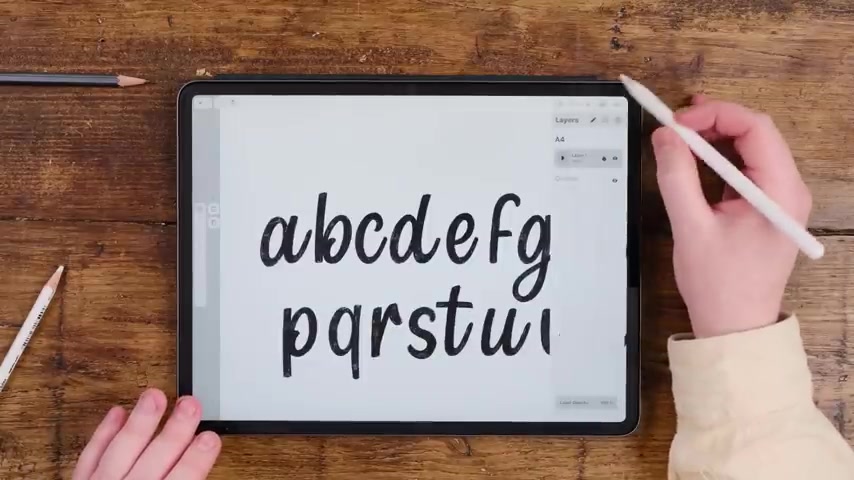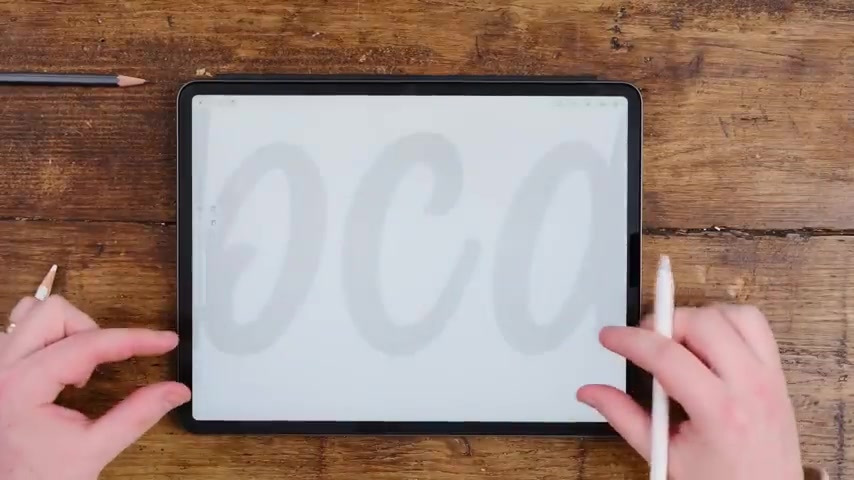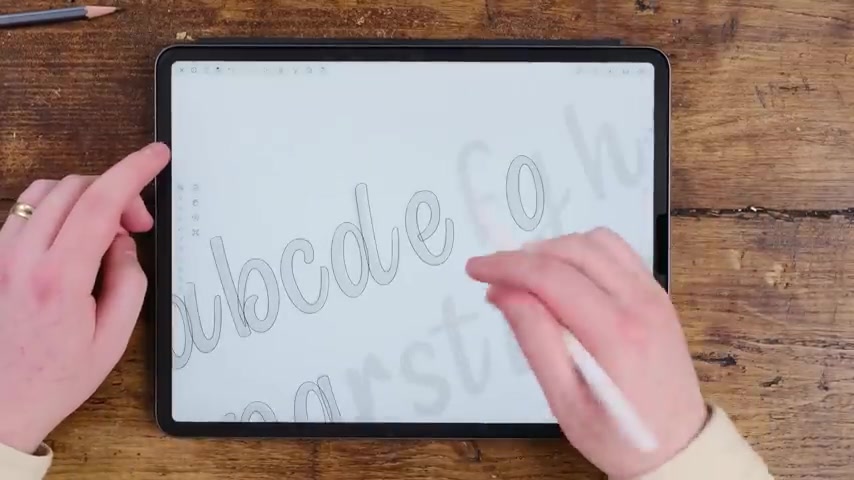
Design Your Own Font: A Step-by-Step Guide with Vectornator Pro
Creating your own font might seem like a daunting task, reserved for seasoned designers with years of experience. However, with the right tools and guidance, anyone can unleash their inner typographer! This comprehensive guide will walk you through the process of designing your own typeface using Vectornator Pro, a powerful and, best of all, free vector graphic software. Get ready to add a personal touch to your design projects and express your unique creative vision through custom fonts.
Key Points for Font Creation
Creating fonts doesn't have to be a complex process.
Vectornator Pro is a free and powerful tool for font design.
Consistency is key for a cohesive and professional-looking typeface.
You can repurpose basic shapes to create different letterforms efficiently.
Fontself is helpful for exporting typefaces.
Getting Started with Font Design
Why Design Your Own Font?
In a world saturated with generic fonts, crafting your own typeface is a sure-fire way to stand out and inject unparalleled uniqueness into your designs. Forget being confined by existing options; designing your own font puts you in the driver's seat, allowing you to sculpt letterforms that perfectly mirror your brand's personality, the tone of a specific project, or simply your own individual style. This means designs that are not just visually pleasing but deeply resonant with the message they carry, setting you apart from the crowd and enhancing brand recognition. Creating your own fonts allows for ultimate creative control, ensuring designs are distinctive and impactful. This level of customization is invaluable for branding, marketing, and any project where visual communication is paramount. Plus, having a unique Typeface offers unparalleled brand recognition, immediately setting designs apart in a crowded marketplace. Embracing custom Font creation is about more than aesthetics; it's about crafting a visual voice that is entirely your own.
Choosing the Right Tools: Vectornator Pro
The backbone of this guide is Vectornator Pro, a free, intuitive, and remarkably capable vector Graphic Design software, perfect for crafting bespoke typefaces. While many might assume that high-quality design tools come with a hefty price tag, Vectornator Pro shatters that expectation by offering a robust suite of features without costing a dime.
Its user-friendly interface makes it accessible to both beginners and seasoned designers, while its powerful vector editing capabilities provide the precision and flexibility needed to sculpt intricate letterforms. Vectornator Pro stands out not just for its price but for its comprehensive toolkit. From the Pen tool, allowing for precise path creation, to Shape tools for quickly generating basic geometric forms, it provides everything you need to bring your typographic visions to life. Furthermore, its compatibility across iOS and macOS devices means you can design your fonts on the go, seamlessly transitioning between your iPad and iMac as needed.
Creating Your Font: A Step-by-Step Tutorial with Vectornator Pro
Step 1: Sketching and Refining Your Letterforms
Before diving into the digital realm, it's beneficial to sketch out your letterforms by HAND.
This allows you to explore different styles, experiment with unique characteristics, and establish the overall aesthetic of your typeface. Consider the following:
• Serif vs. Sans-serif: Will your font have serifs (the small decorative strokes at the end of letterforms) or will it be a clean, modern sans-serif?
• Weight: How thick or thin will the strokes be? This will influence the overall impact of your font.
• Contrast: Will there be a significant difference in thickness between the vertical and horizontal strokes?
• Proportions: How tall or wide will the letters be in relation to each other?
Once you have a clear idea of your font's style, you can refine your sketches. Draw the full alphabet either by hand or, to prepare for the next step, in Procreate with a thick brush pen. Focus on achieving consistent letterforms and overall visual harmony. Consider testing how your letters look when put together to create words. Choose a WORD with a variety of letters to see how your font will appear in context.
Here is a look at hand lettering used as inspiration for font design:
Hand Lettering
Remember the words should all have the same descender size and the letters should have similar thicknesses, keeping consistency in mind. It does not need to be perfect, but should be refined.
Step 2: Importing Your Sketches into Vectornator Pro
Now, it's time to bring your hand-drawn creations into Vectornator Pro.
Import your scanned or photographed sketches into the software. Reduce the opacity of the guide layer to about 16% then lock it. This will serve as a guide for your digital tracing, allowing you to accurately recreate your letterforms as vector graphics. Reduce the opacity of the sketch layer to ensure clear lines.
Step 3: Vectorizing Your Letterforms
Using Vectornator Pro's Pen tool, carefully Trace over your sketches, creating precise vector paths.
The Pen tool allows you to create Bézier curves, which are ideal for crafting smooth, flowing lines. Focus on capturing the essential shapes and details of each letterform. While you could copy and paste a circle into the canvas and then edit it, there's no point to using the pen tool to make a perfect circle. Instead, that time could be saved by using it where natural imperfections are desirable. As mentioned before: the least amount of anchor points and handles, the cleaner shape your font will appear.
Consider the following:
• Anchor Points: Place anchor points strategically to define the curves and corners of your letters.
• Handles: Adjust the handles of your anchor points to fine-tune the shape of the curves.
• Precision: Zoom in to ensure accuracy and smooth transitions between curves and straight lines.
When you're working on font design, you need to make sure you are working with letters that look similar. This means pulling letters from one and dropping them into another to save time and make the design more consistent. All letters should have the same decenders, thicknesses, size, and angle.
Step 4: Refining and Finalizing Your Font
Once you've vectorized all of your letterforms, it's time to refine and finalize your typeface. This involves:
• Adjusting Spacing (Kerning): Fine-tune the space between each letter to ensure readability and visual appeal.
• Ensuring Consistency: Maintain consistent stroke weights, proportions, and overall style across all letterforms.
• Testing: Type out words and phrases to see how your font performs in different contexts.
Remember to check frequently on all of your shapes together to be sure that they work well together as one.
Refine the curves using the node tool. To get the most polished font, make small adjustments rather than large ones. The smart spacing and kerning function automates much of the spacing. But you can kern them individually for the perfect spacing.
Step 5: Exporting Your Font for Use
With your typeface meticulously designed, it's time to export it for use in your projects. Here’s how to move your creations out of Vectornator Pro:
• Illustrator: With vector files, you have a number of file type exports available for editing in Adobe Illustrator such as the AI file type.
• Photoshop: This design tool can also be used to bring your vector files into.
• Fontself: Make sure you download Fontself and then drag and drop your font into the application. Be sure to select the letters you dragged in, as in the correct letter case.
Advanced Tips for Font Design Mastery
Maintaining Consistency in Your Typeface
Consistency is paramount when creating a typeface that exudes professionalism and visual harmony. Here's how to ensure that your letters work together as a Cohesive unit:
• Establish a Baseline: Define a consistent baseline (the line on which most letters sit) to maintain visual alignment.
• Consistent X-Height: The x-height (the Height of lowercase letters like 'x' and 'a') should be uniform across your font.
• Consistent Stroke Weight: Maintain a consistent thickness for the strokes of your letters, unless you're intentionally creating a variable font.
• Consistent Curves: Ensure that your curves are smooth and balanced. One technique for curves is to use the curve and then copy that curve and paste it into a new letter. This helps to make designs go faster and to have similar shapes.
Exploring Different Font Styles
Don't be afraid to experiment with different font styles to express your unique creative vision. Here are a few ideas to get you started:
• Script Fonts: Create flowing, calligraphic fonts with elegant curves and connections.
• Display Fonts: Design bold, attention-grabbing fonts for headlines and titles.
• Geometric Fonts: Construct fonts based on simple geometric shapes for a modern, minimalist look.
Let your creativity flow and don't be afraid to break the rules. The best fonts often emerge from unexpected explorations and innovative approaches.
Leveraging Fontself (Fontself Maker)
You can use extensions for some of the Adobe programs such as Fontself to pull designs to the extension so they may be used anywhere. This gives you a way to export your fonts, then, and sell them for use.
Free!
Vectornator Pro: Free Design Software
As mentioned before: Vectornator Pro is free for you to use! There are no Hidden fees to pay for its use. There are some paid extensions such as Glyphs or Glyphs Mini, but the base software used in the project is free to use on Apple products.
Advantages and Disadvantages
👍 Pros
Free to use, no subscription required
Powerful vector editing tools
Intuitive and user-friendly interface
Cross-platform compatibility (iOS and macOS)
👎 Cons
Limited features compared to paid software like Adobe Illustrator
Can be resource-intensive on older devices
Key Features of Vectornator Pro for Font Design
Bézier Curves
As a core feature in Vectornator Pro, the Bézier curves allow you to construct points and handles that are extremely precise. These handles let you manipulate stroke shapes and curves to exactly how you want them.
Pen Tool
The Pen tool allows for very precise vector path creations, so that you get the exact strokes you want.
Shape Tool
Using basic geometrics helps create designs with a unique spin. By manipulating pre-defined shapes, this opens a gateway to simple vector graphics.
Compatibility Across Platforms
This allows for seamless design, as the designer is allowed the flexibility to create a font whereever, whenever.
How the Features of Vectornator Pro can be used:
Precision
Each of the aspects of the software helps with the precision needed to create designs. This applies to creating and tracing paths, curves, and shapes with accuracy.
Free Design
This free software helps users unlock the software and create their desired designs without the barrier to entry of paying. This can be helpful for amateur designers, helping them learn to better create vector images. This also helps seasoned designers who don't have access to the expensive design software but are still trying to produce a design that earns money.
Fonts-on-the-go
With the portability of apple products and the design features of Vectornator Pro combined, create designs anywhere! When you're inspired, you can create!
Frequently Asked Questions About Font Design
Is font design difficult?
Not at all! With this great free software for apple products. Any font is possible! Take your time and be inspired!
I have a specific question about FontSelf or Glyph, who should I reach out to?
Because of the range of extensions and capabilities in design software, these will need to be looked up using their respective resources. Many of these have help options or have help available from their community, and may need to be investigated more thoroughly.
More Questions About Font Creation
What are the best resources for learning about typography?
The world of typography is vast and exciting. There are some helpful places to go to learn more, such as: Books: "The Elements of Typographic Style" by Robert Bringhurst, "Thinking with Type" by Ellen Lupton, "Type Rules!: The Designer's Guide to Professional Typography" by Ilene Strizver. Online Courses: Coursera, Skillshare, Udemy all offer typography courses taught by industry experts. Websites & Blogs: Typewolf, I Love Typography, Fonts in Use, Typographica. Communities: Join online forums and social media groups dedicated to typography to learn from other designers and share your work. Experimentation: The best way to learn is by doing. Experiment with different fonts, styles, and techniques to develop your own unique typographic voice. As you delve deeper into these resources, you will be able to better learn and design your own custom fonts.